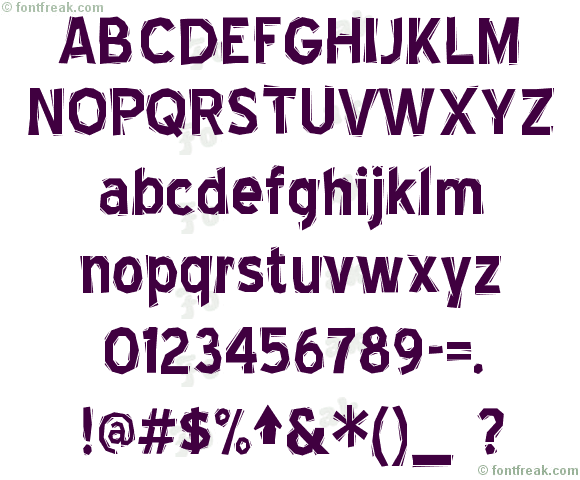
Blue Highway Linocut
The Blue Highway Linocut font, designed by Ray Larabie in 2001, is a distinctive display font that captures the essence of handcrafted artistry. As a linocut-style typeface, it features a rugged, textured appearance reminiscent of traditional printmaking techniques. The strokes are bold and uneven, providing an organic quality that adds character to any design. With its medium stroke weight and minimal contrast, this font maintains readability while offering a unique visual impact. The spacing between characters is moderate, making it suitable for various applications without sacrificing clarity.
This font excels in creative environments, making it ideal for use in wedding invitations, where its artistic flair can add a personal touch. It also works wonderfully for movie posters, giving a vintage feel that can evoke nostalgia. Restaurant menus benefit from the font's charm, allowing establishments to showcase their unique personality. Additionally, it suits graphic designers looking to create eye-catching branding materials or promotional graphics that stand out in a crowded marketplace.
Targeting graphic designers, small business owners, and content creators, the Blue Highway Linocut font free download is a valuable addition to any designer's toolkit. Its handcrafted look appeals to those who appreciate a personal, artisanal touch in their projects.
What sets Blue Highway Linocut apart is its ability to blend tradition with contemporary design needs. The font’s unique texture and bold presence make it a versatile choice for various creative projects, ensuring that your designs communicate authenticity and artistic intent. By incorporating this font into your work, you can elevate your visual storytelling and make a lasting impression.